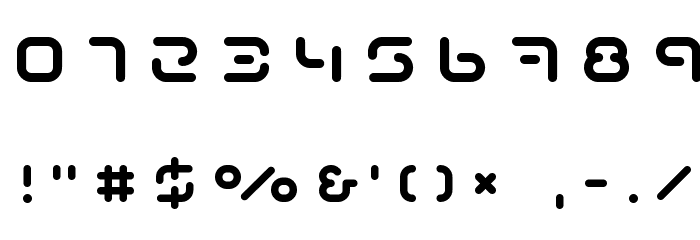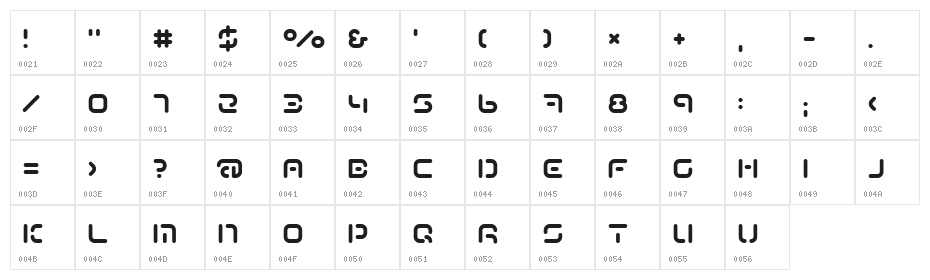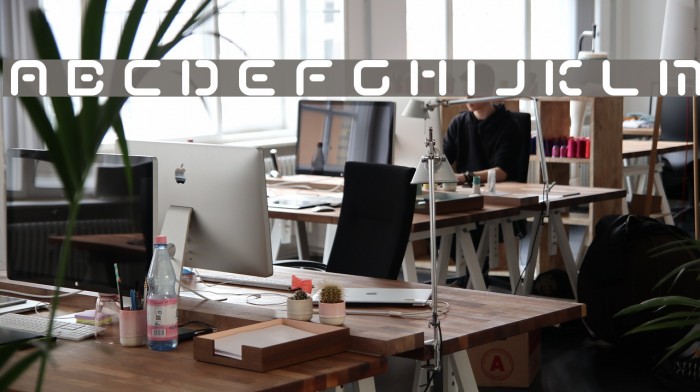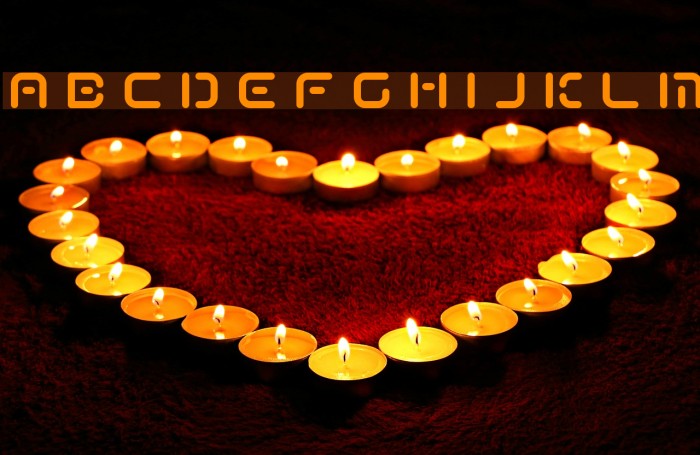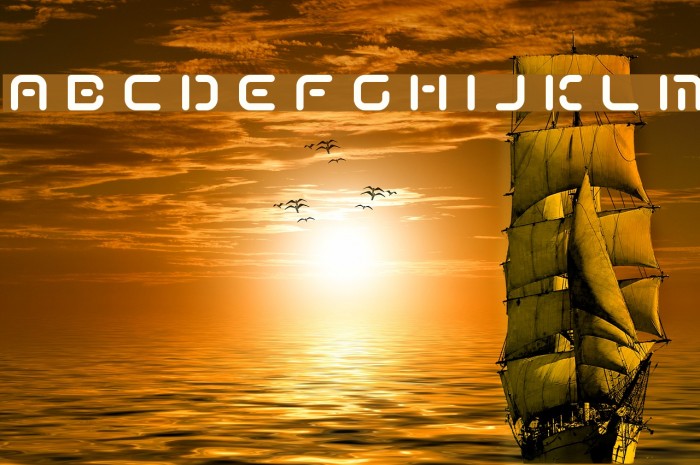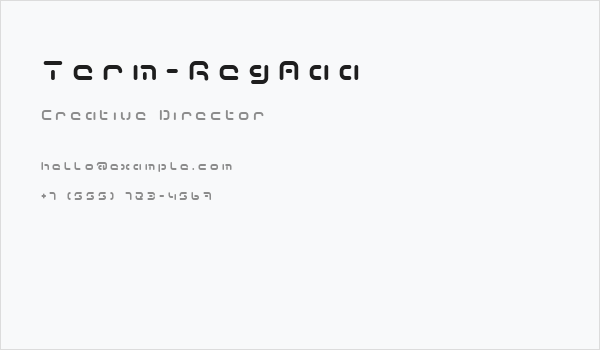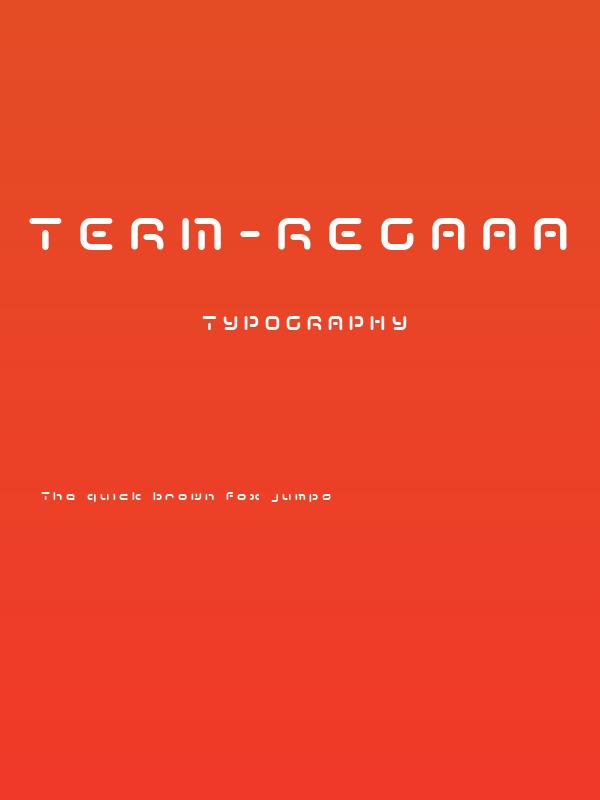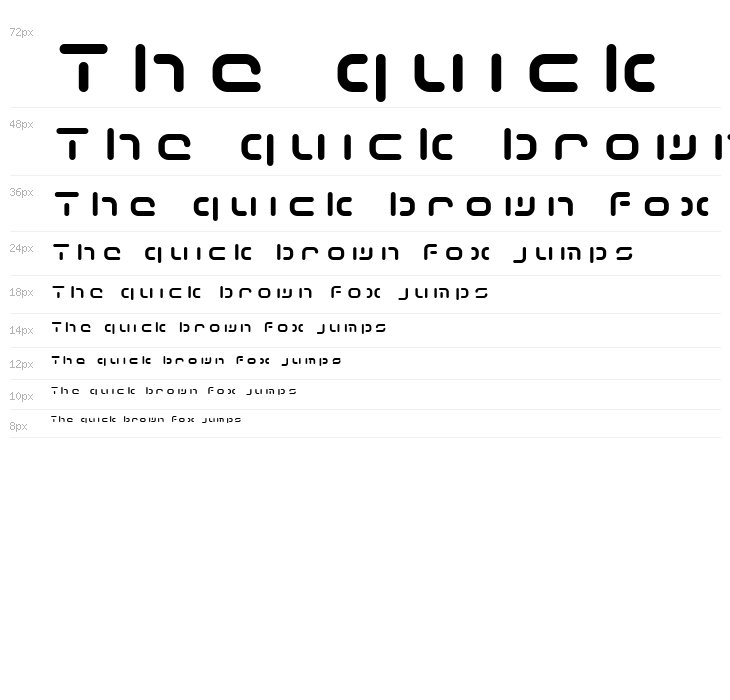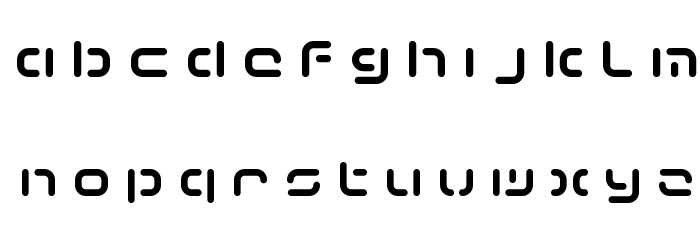
Term-RegAaa Font
Term-RegAaa Description
This font features a futuristic and geometric design, characterized by rounded edges and a consistent stroke width. The characters are constructed with a modular approach, giving them a digital and modern appearance. The uppercase and lowercase letters maintain a uniform style, with minimal variation in stroke thickness, contributing to a cohesive look. Numbers and special characters follow the same design principles, ensuring a seamless integration across all glyphs. The font's clean and minimalistic aesthetic makes it suitable for technology-related projects or modern branding.
| Use Case | Logos, Headlines, Digital Interfaces |
| Proposed Projects | Ideal for technology branding, digital interfaces, modern logos, and futuristic designs. |